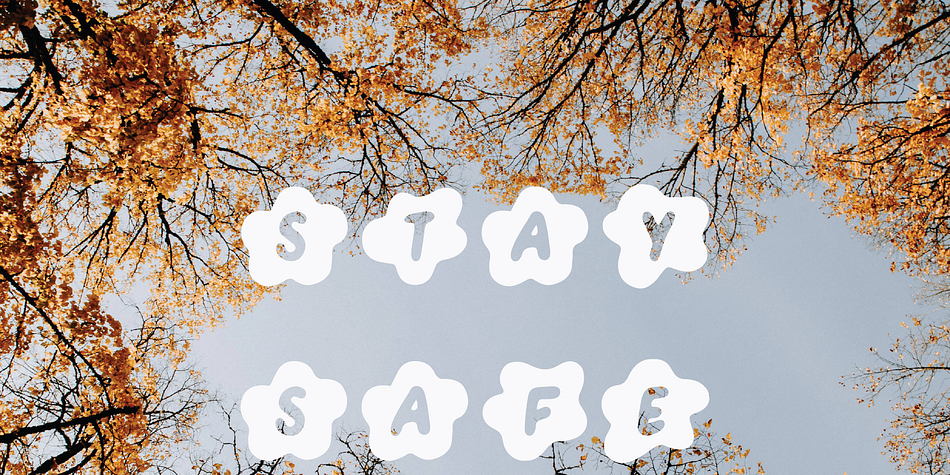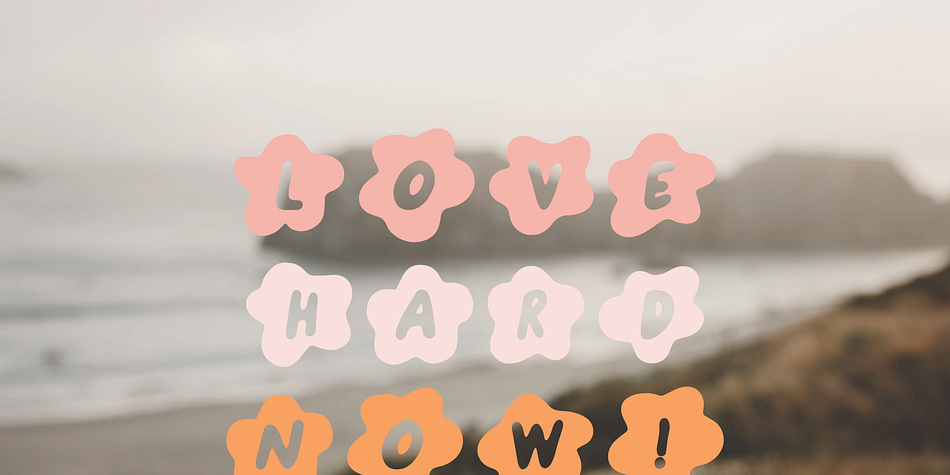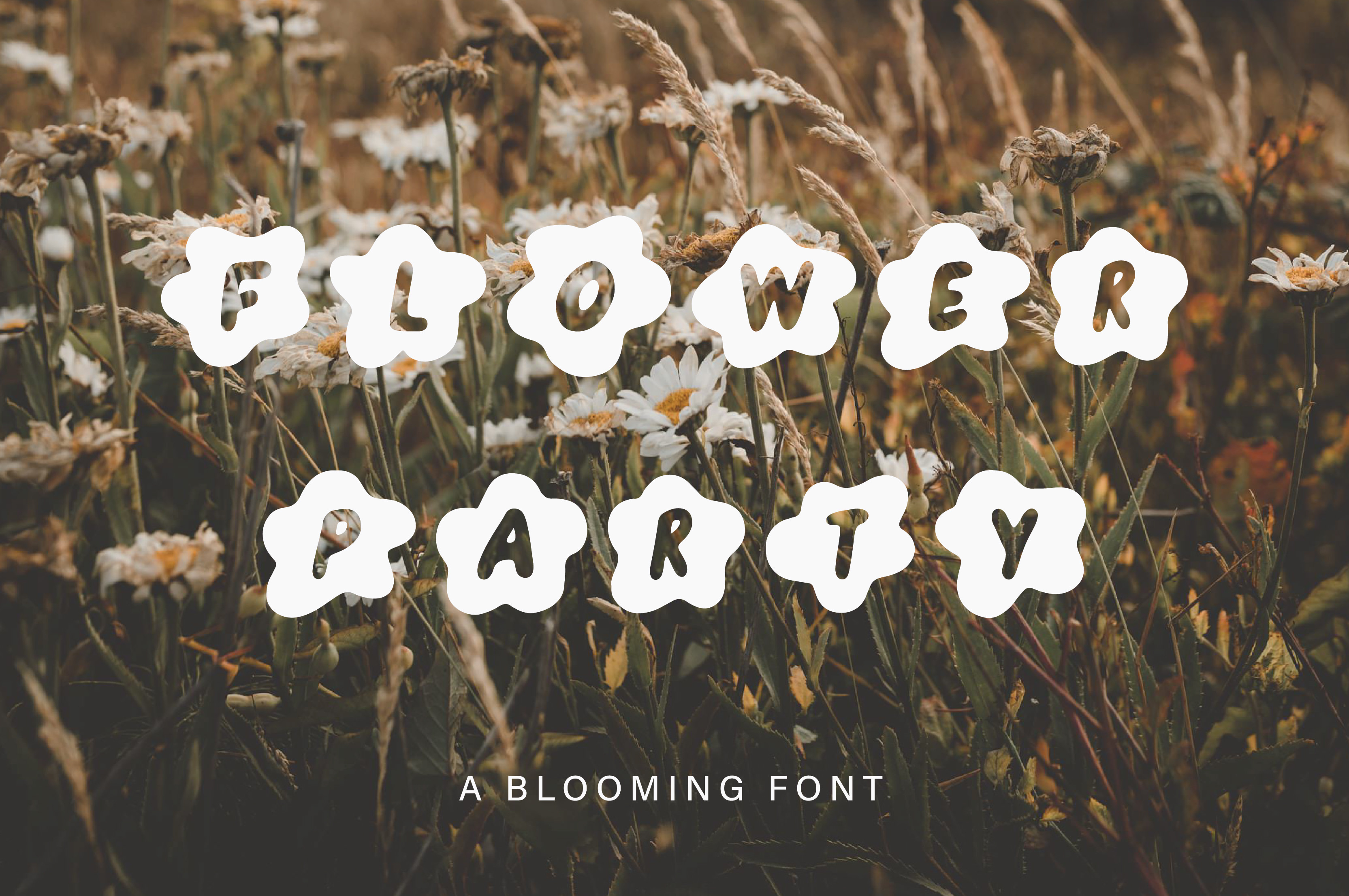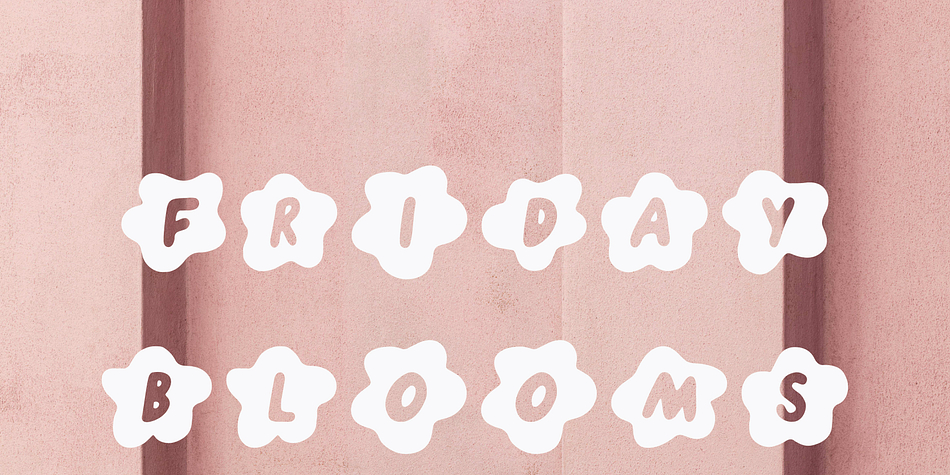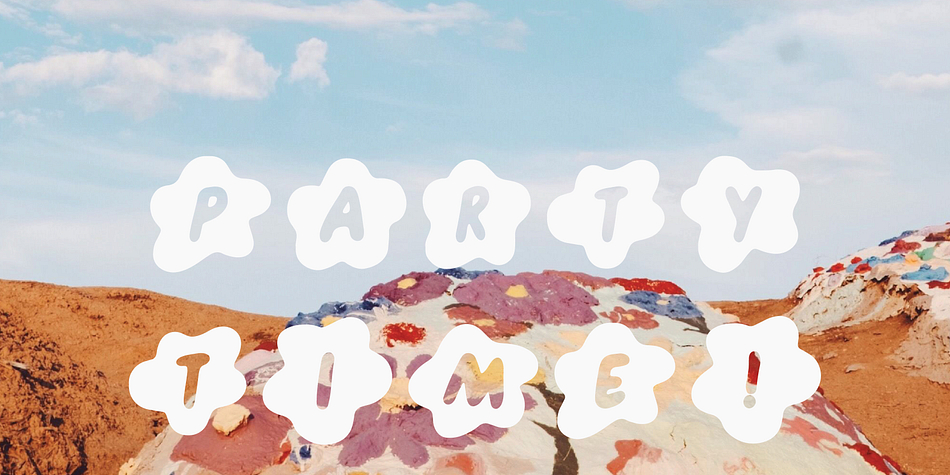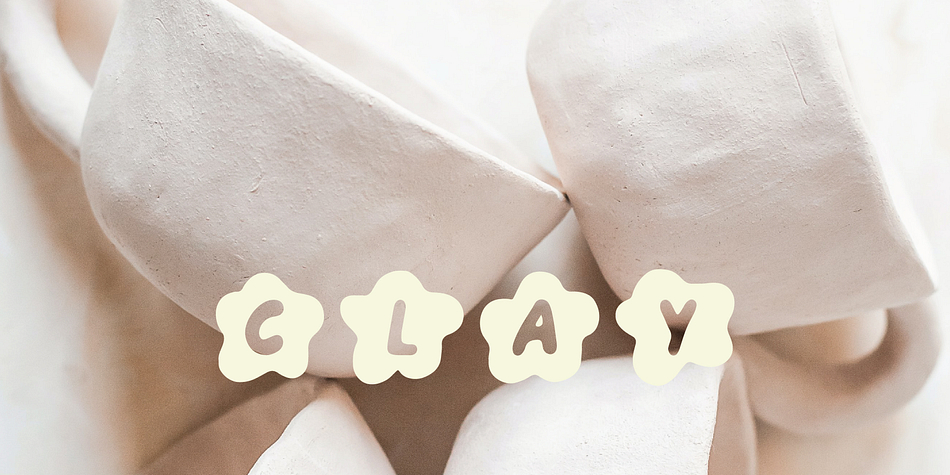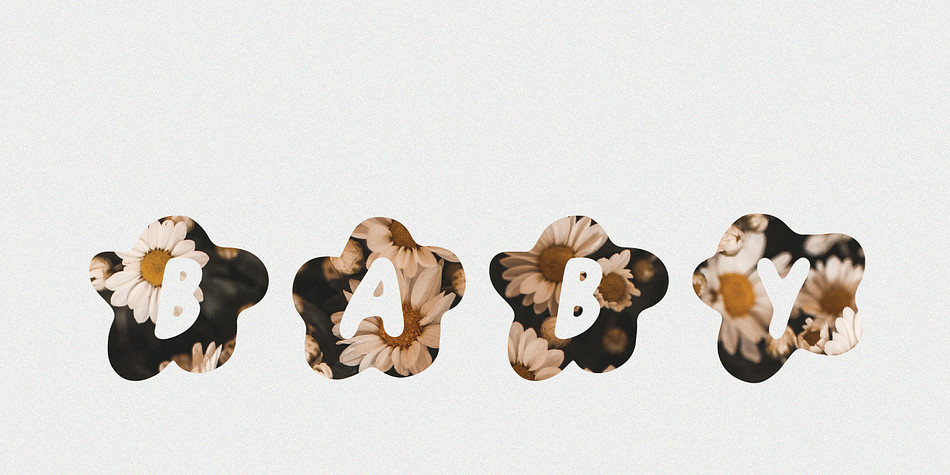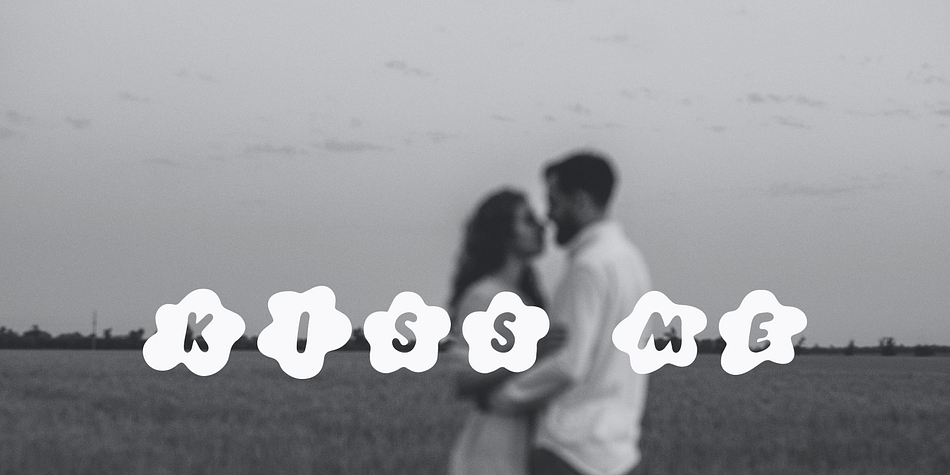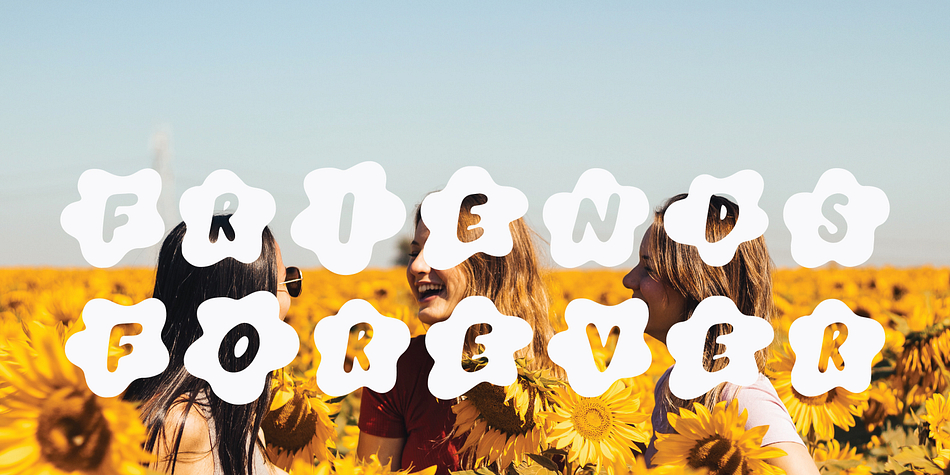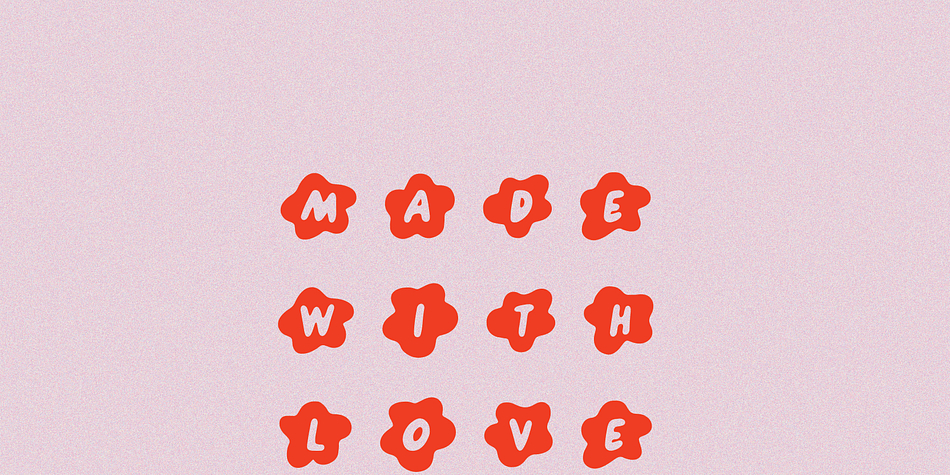
FLOWER PARTY
Flower Party is an arts and crafts and novelty font family published by Loryn Ipsum.
FLOWER PARTY | a fresh groovy 70s handwritten flower font
Perfect for; handmade products, groovy brands, retro brands, fun flower logos, 70s vibe brands, commercial on-trend brands, brands with a young demographic.